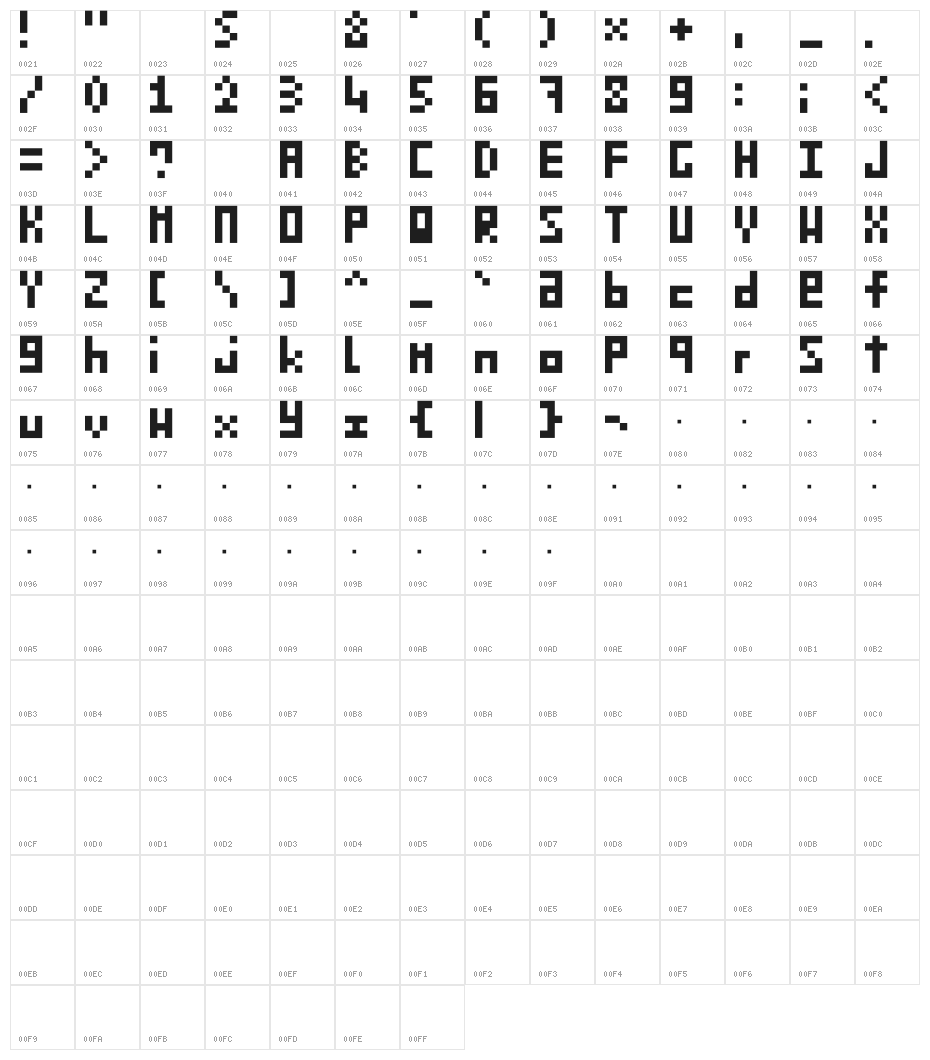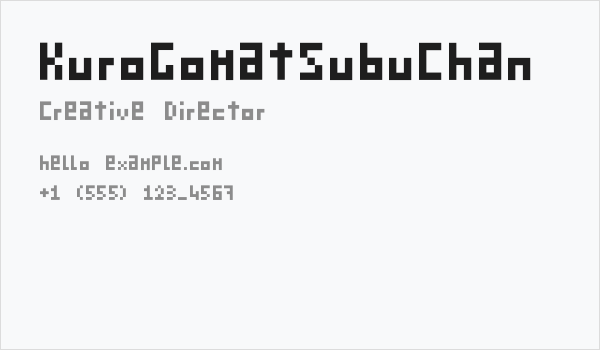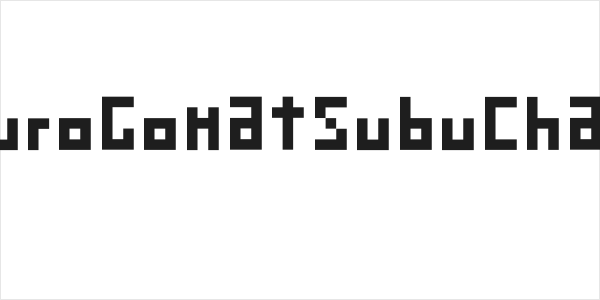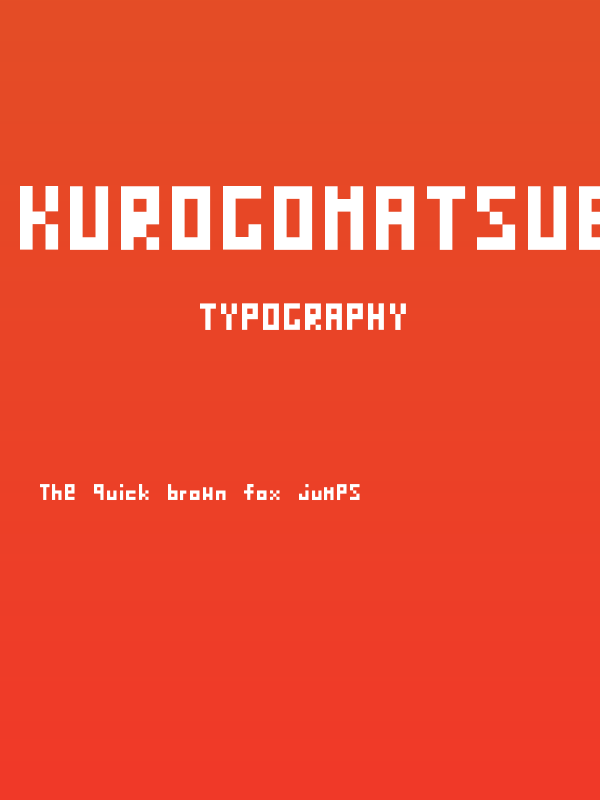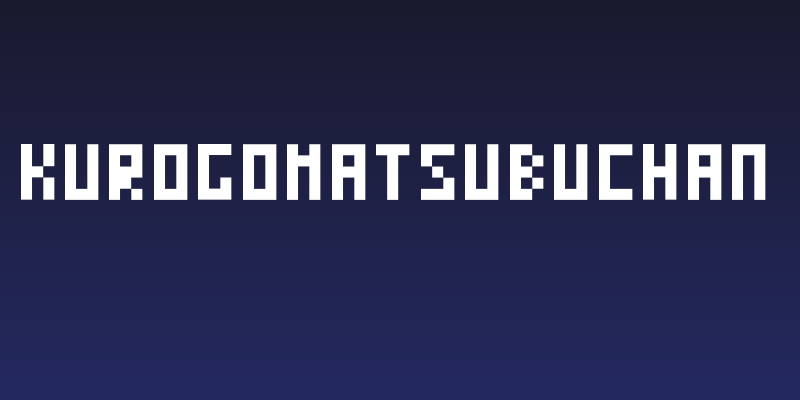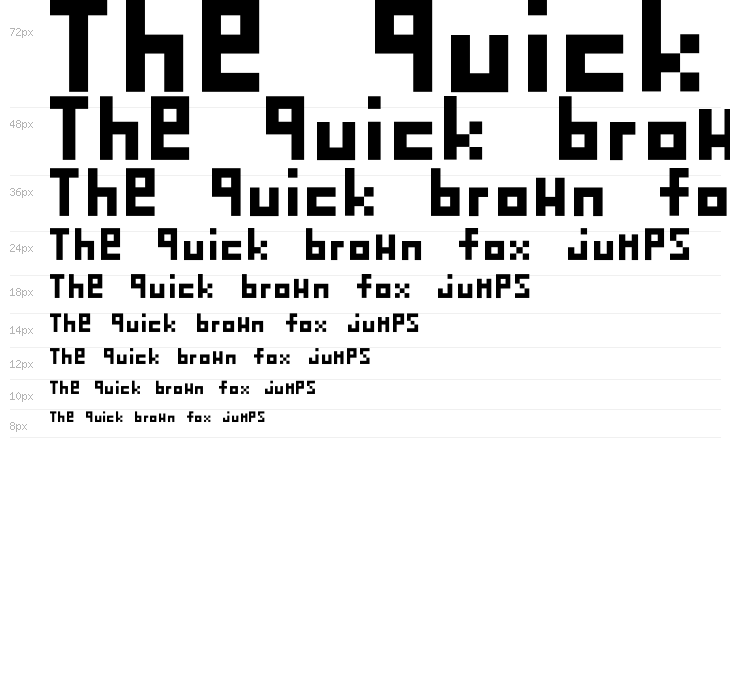
KuroGomatsubuChan Font
KuroGomatsubuChan Description
This font features a bold, pixelated design reminiscent of early digital displays and retro video games. Each character is constructed with a grid-like precision, giving it a blocky and geometric appearance. The uppercase and lowercase letters maintain a consistent height, contributing to a uniform and cohesive look. Numbers and special characters follow the same pixelated style, ensuring visual harmony across all elements. The font's distinct style makes it highly legible at various sizes, while its nostalgic aesthetic evokes a sense of classic arcade gaming and digital nostalgia.
| Overall Style | Retro, Digital |
| Use Case | Headlines, Logos, Digital displays |
| Proposed Projects | Ideal for retro-themed designs, video game graphics, digital art projects, and tech-related branding. |